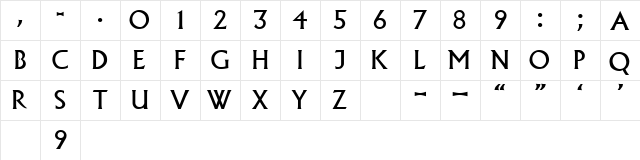
FuriosoTitling Regular
Design Context for FuriosoTitling Typeface
FuriosoTitling is a composed and adaptable typeface that performs quietly and consistently across a wide range of design contexts.